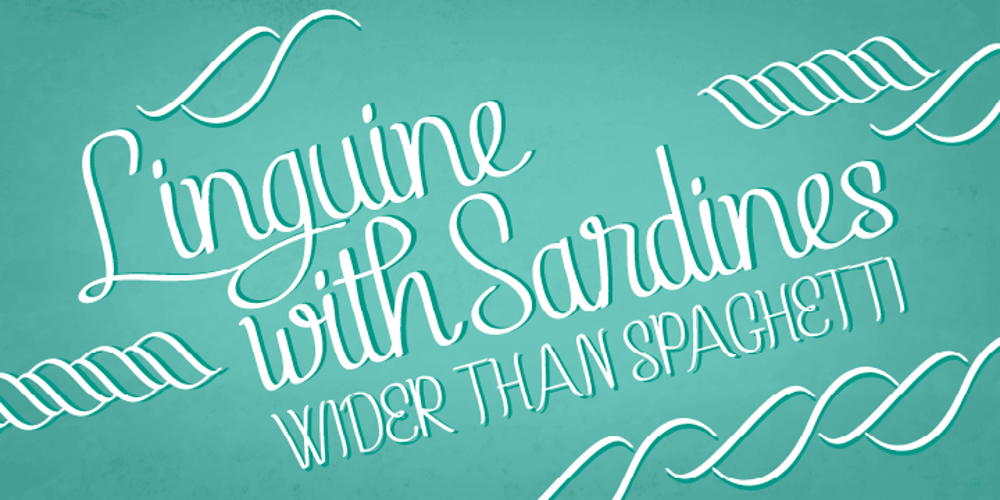
Linguine Font Family was designed by Emil Karl Bertell and published by Fenotype. Linguine contains 4 styles and family package options. Linguine is a flowing script family with plenty of automatic ligatures, Swash initials, Small caps and Ornaments. You can easily access these features in any Opentype savvy program.